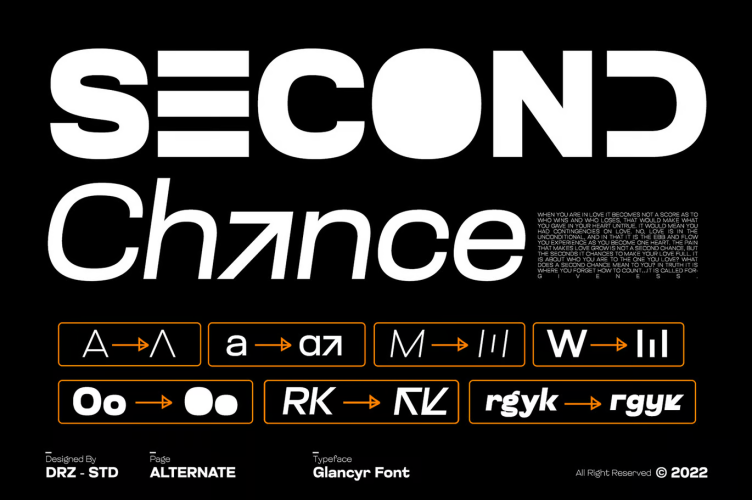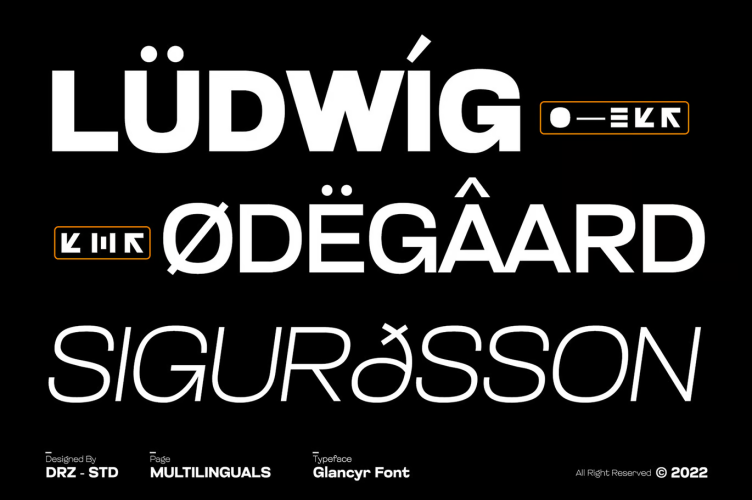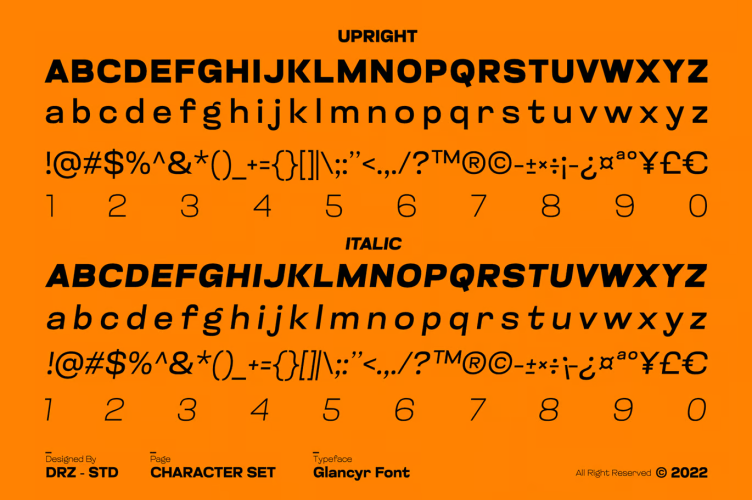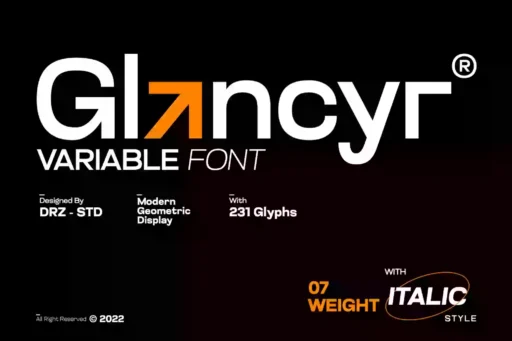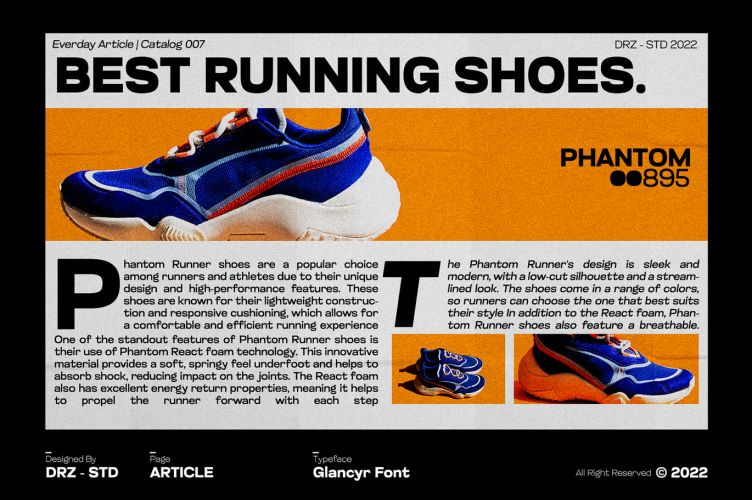
Glancyr Font
Glancyr is a recent geometric font created by Drizy Studio that provides several styles for use across different forms of projects. This font smoothly combines the modern trends of design with clear geometric shapes, which means it can be applicable for various projects, both for logo creation, digital products, ads, and printed materials.
Glancyr is loaded with useful characteristics to offer flexibility and usability. It has both a standard and italic font, so if a design needs something more blunt and precise or a more energetic, tilted look, this font will work. The font also has all the punctuation and numerals that are required both in texts and numbers.
Glancyr offers a range of language options in many languages and ensures proper communication with customers from all over the world. It also has well designed ligatures that make sure that text flows well by linking specific letter combinations and the alternate characters provides a creative outlet and the ability to produce variations that can add value to your designs.
Where Glancyr Font works best
Glancyr Font stays legible at small sizes, which makes it a strong choice for navigation, buttons and dashboards in web design and app interfaces.
Clean sans serifs like Glancyr Font are the default language of SaaS, fintech and product branding.
What is Glancyr Font good for?